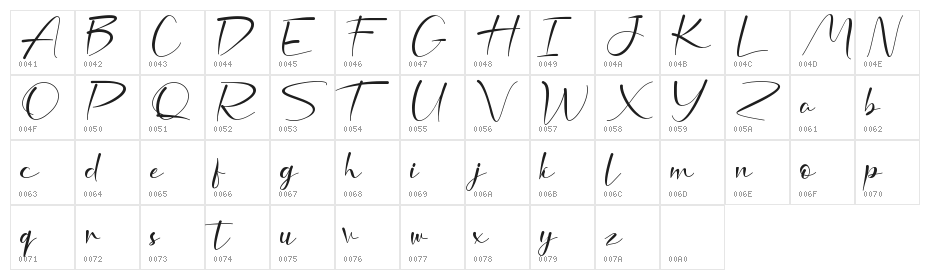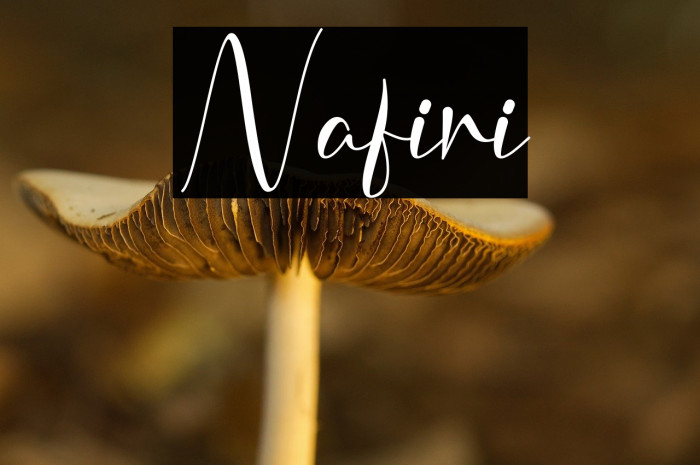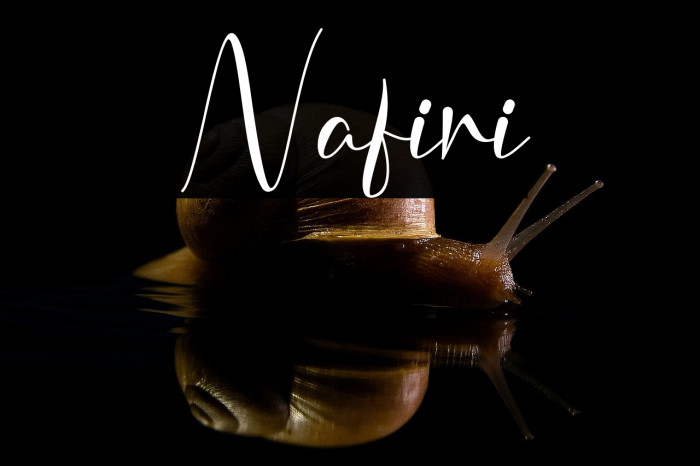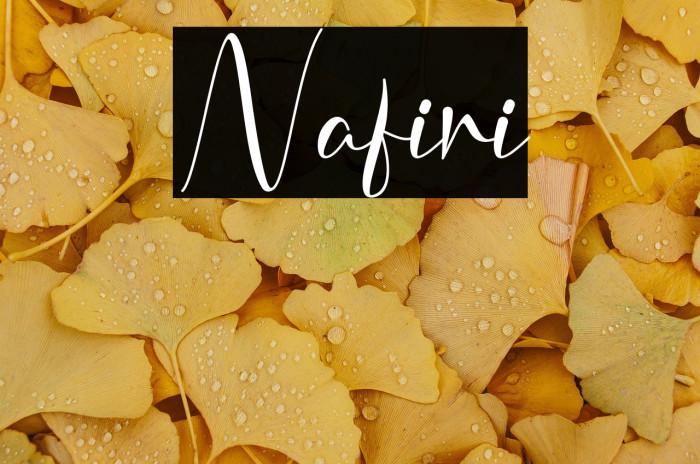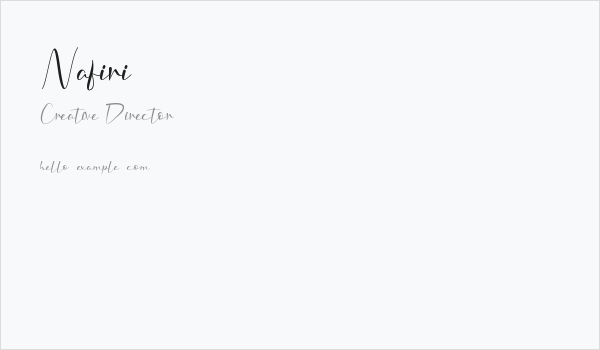
Nafiri Font
Nafiri Description
This font features a dynamic and flowing script style that combines elegance with a modern touch. The uppercase letters exhibit a graceful, airy quality with elongated strokes and subtle curves, creating a sense of movement and sophistication. The lowercase letters are more robust, with thicker strokes that provide a bold contrast to the delicate uppercase. This contrast is further emphasized by the varying stroke thickness within each character, adding a lively and artistic flair. The font maintains a consistent baseline, ensuring readability while allowing for creative expression. Its overall appearance is both stylish and approachable, making it suitable for a variety of design applications.
A dynamic script font with elegant, flowing strokes and modern flair from Regular fonts.
- Proposed Projects: Ideal for wedding invitations, branding, social media graphics, and elegant packaging designs.
- Use Case: Logos, Headlines, Invitations